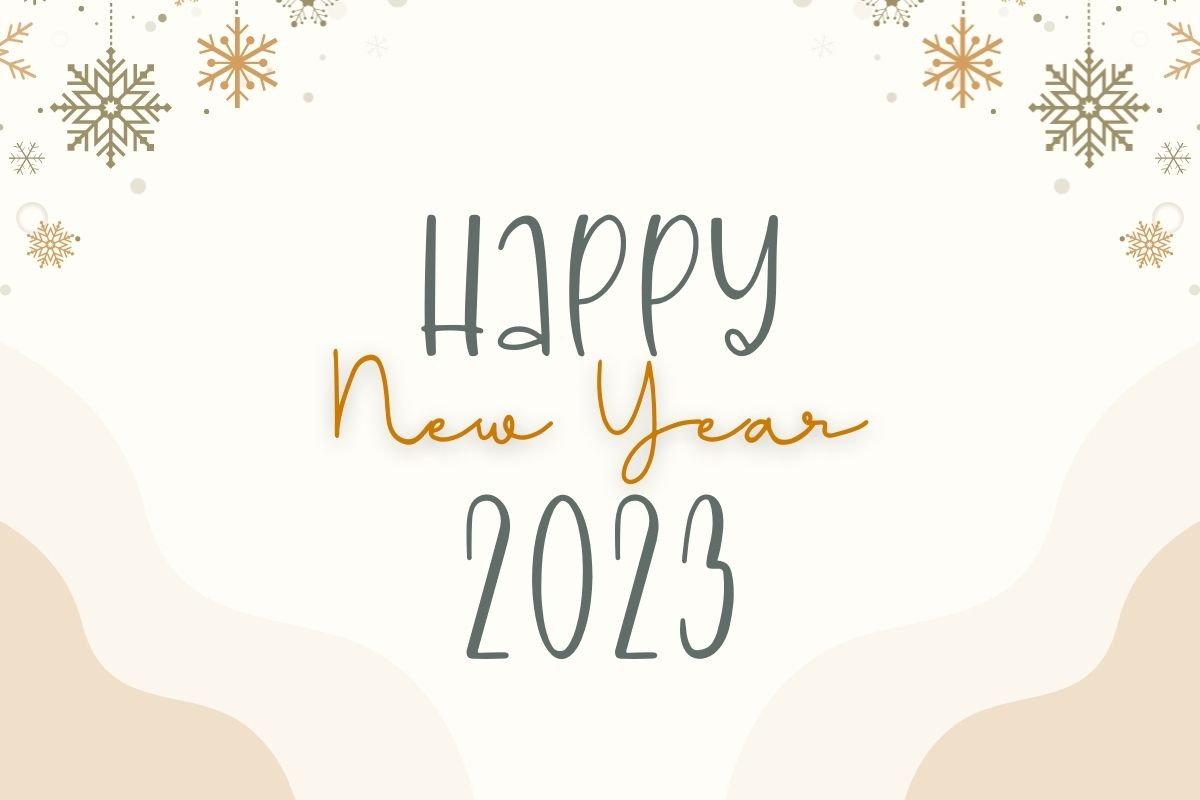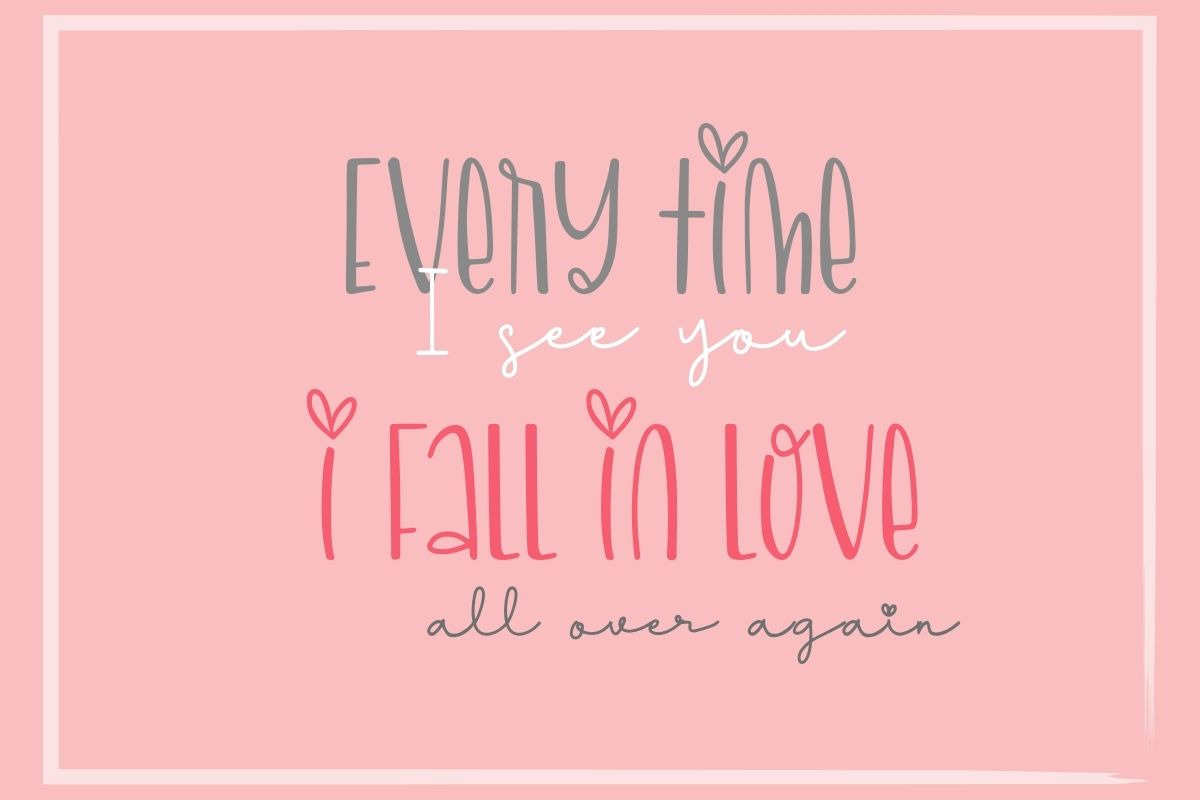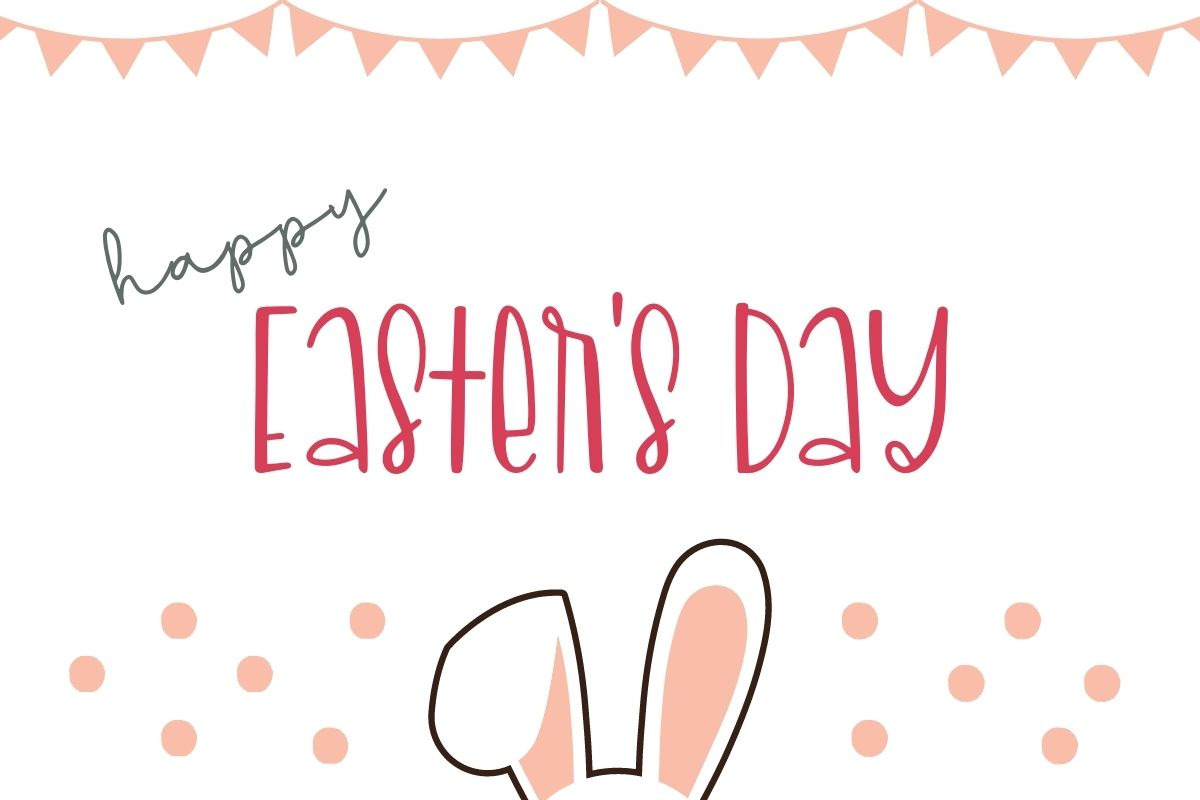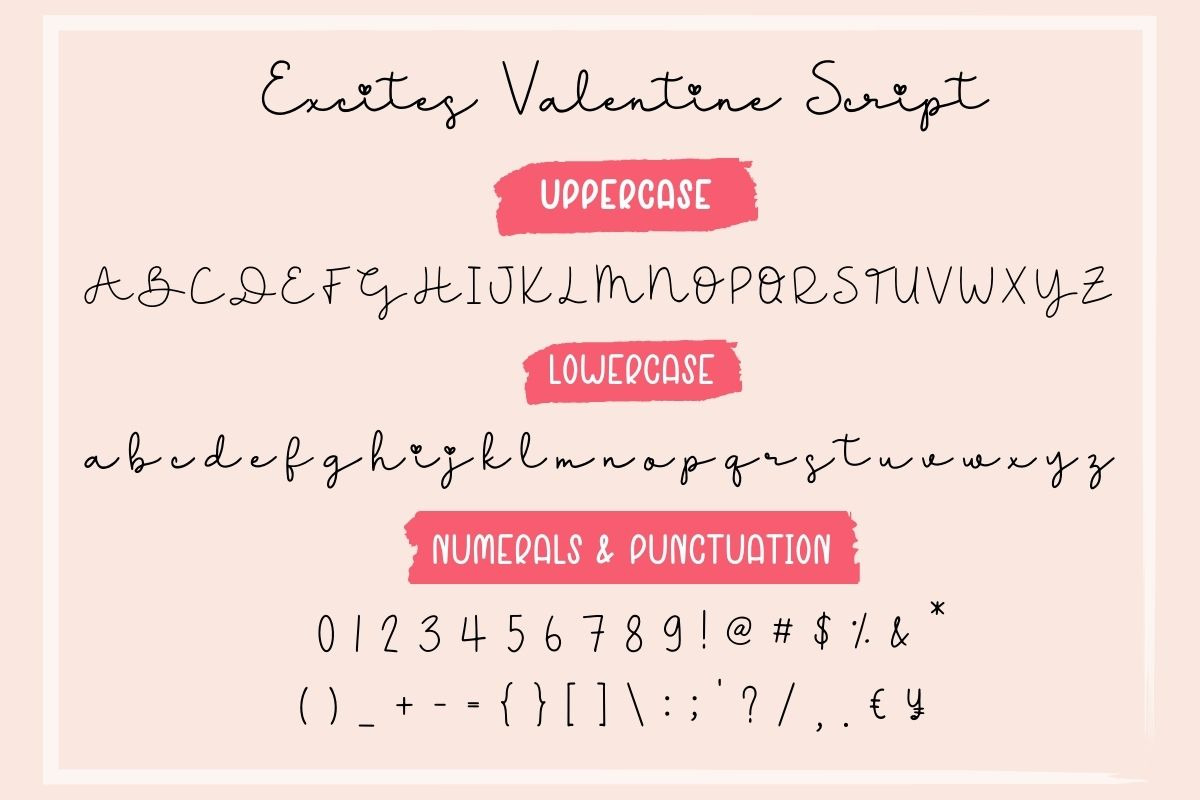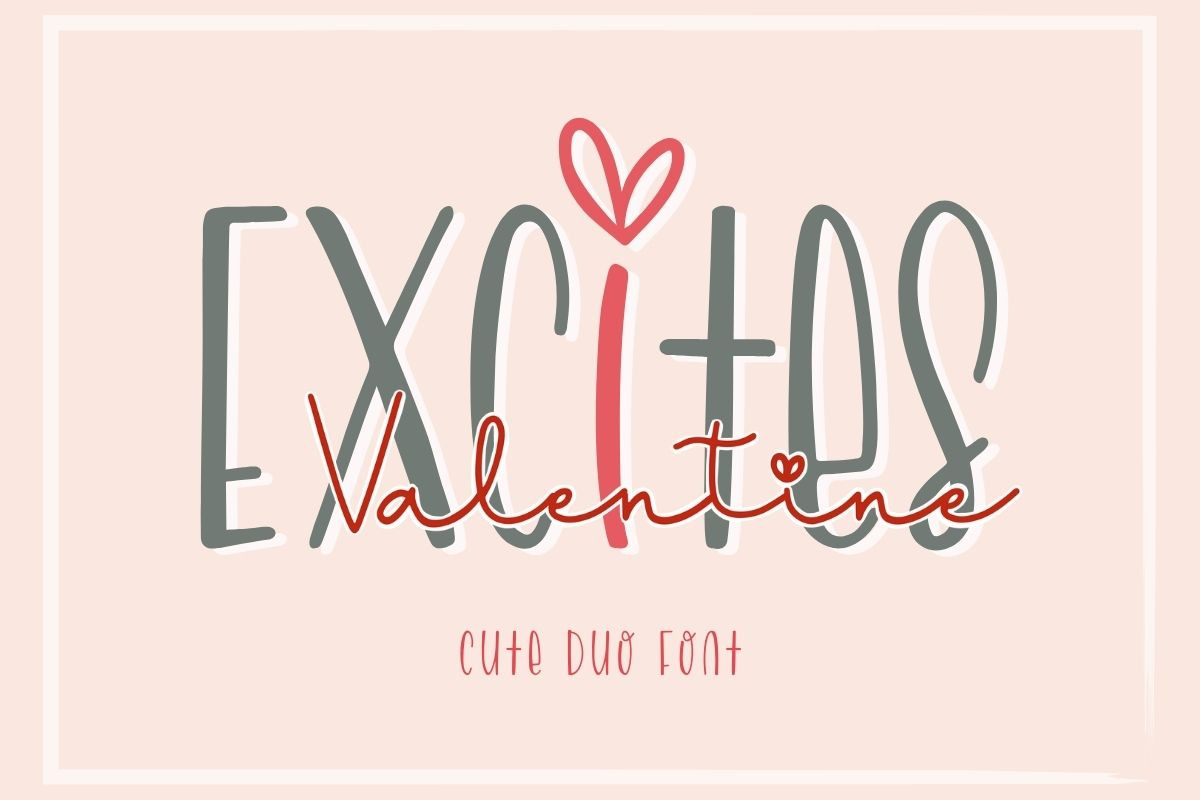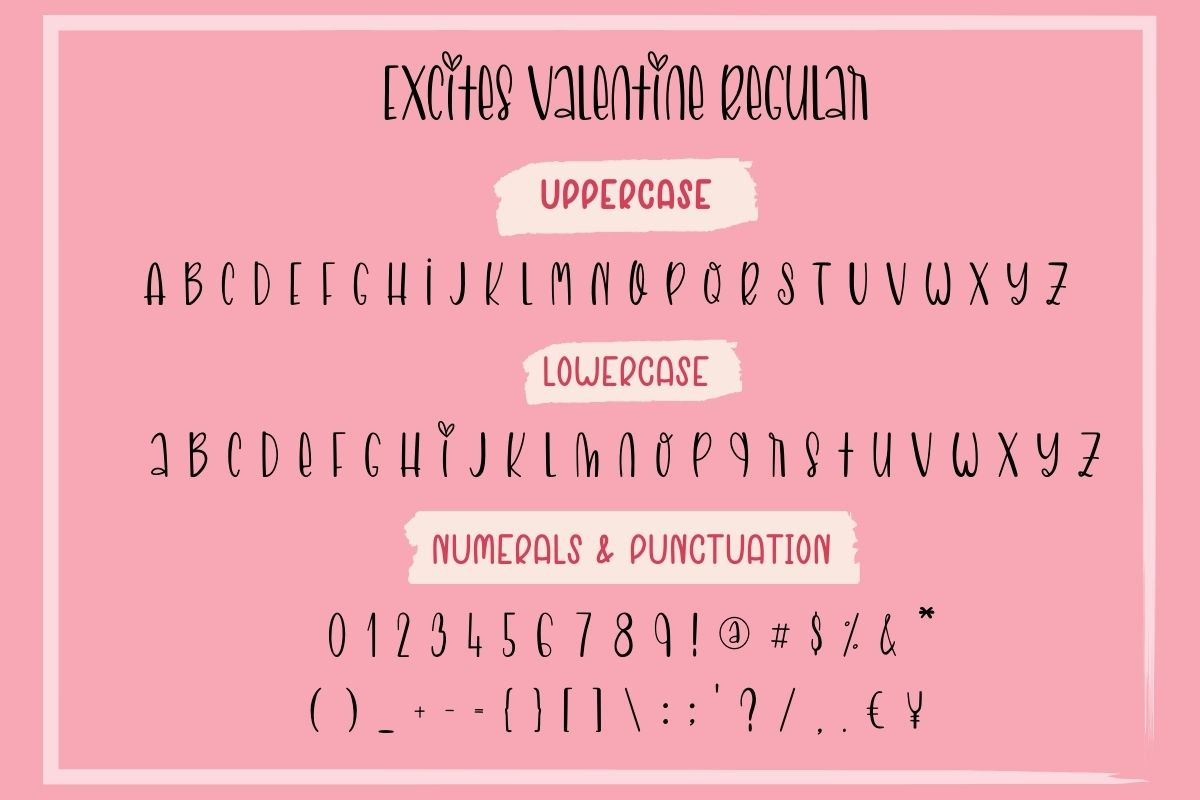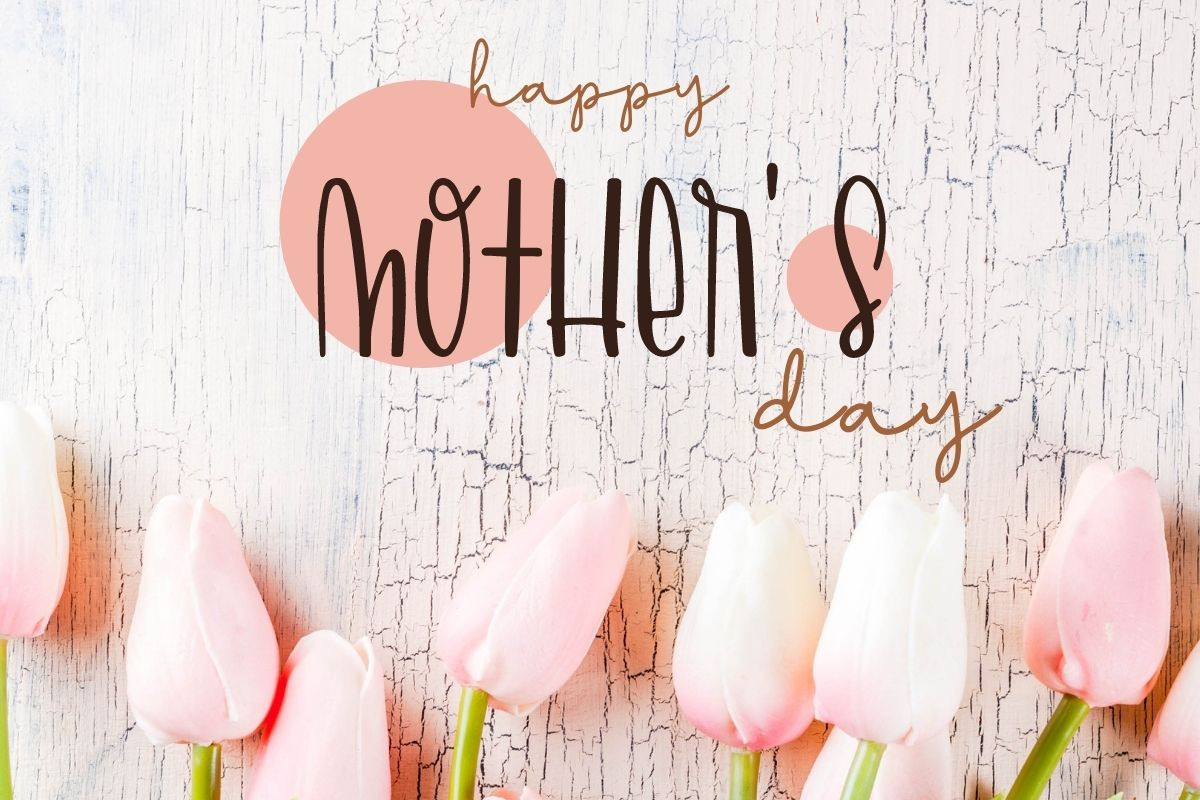
Excites Valentine - Font Duo
Excites Valentine is a cute handwritten and script font duo. With its casual charm, this font is perfect for a wide pool of design ideas. Ideal for creating various new designs to match products such as banners, content, mugs, cards, shirts, stationery, social media posts, and more!